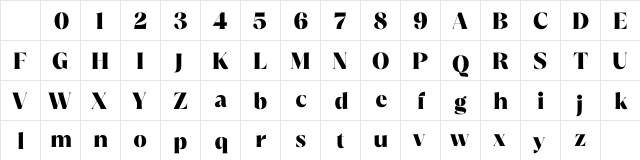
Zerift Trial is a composed and adaptable typeface that performs quietly and consistently across a wide range of design contexts.
Pro Tip: Use Zerift Trial in both headline and body roles to test its range before committing to a single application.